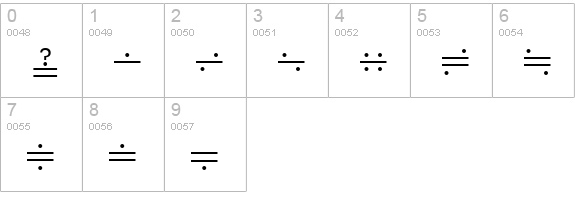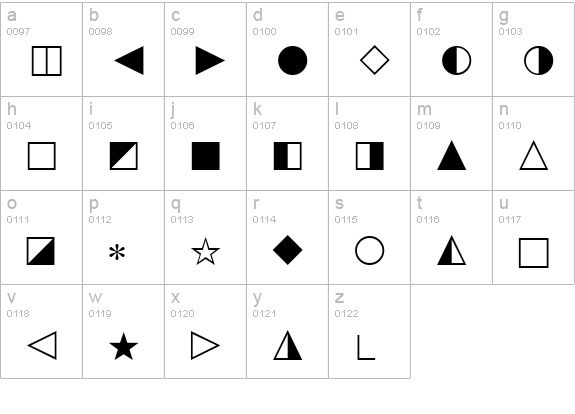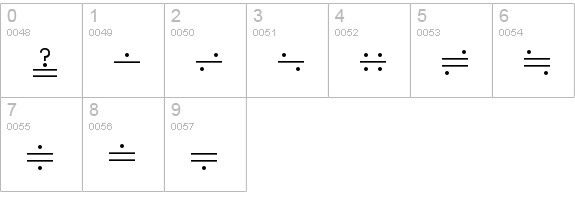
QuantaPiFourSSK Font Details
QuantaPiFourSSK is an exquisite font that effortlessly combines elegance with modernity. Its sleek and stylish design is perfect for a wide range of applications, from branding and logos to headlines and displays. This font captivates with its clean lines and precise geometry, making it a versatile choice for both digital and print media. The QuantaPiFourSSK font is free, allowing users to enhance their projects without any additional cost. It is freely available to download at FontsMarket.com, a trusted source for high-quality fonts. With its extensive character set and various weights, this font offers endless possibilities for creative expression. Whether you're designing a website, creating promotional materials, or crafting eye-catching social media posts, QuantaPiFourSSK will elevate your typography game to new heights. Its legibility and readability make it an excellent choice for both small and large text sizes, ensuring that your message is conveyed with clarity and impact. The versatility of QuantaPiFourSSK extends beyond its design; it also supports multiple languages, making it accessible to a global audience. Its well-balanced proportions and attention to detail make it a timeless font that will never go out of style. Download the QuantaPiFourSSK font today at FontsMarket.com and unleash your creativity with this remarkable typeface. Whether you're a professional designer or a casual enthusiast, this font is sure to inspire and enhance your work. Experience the freedom of expression and elevate your designs with QuantaPiFourSSK.